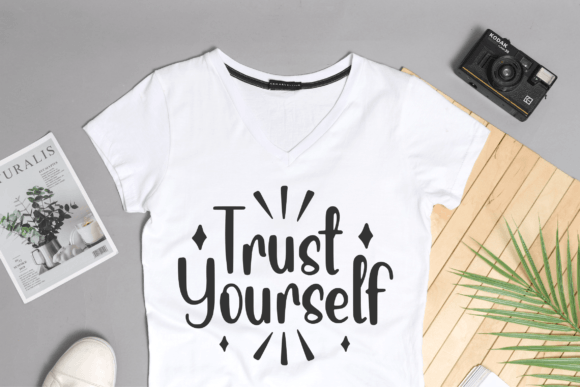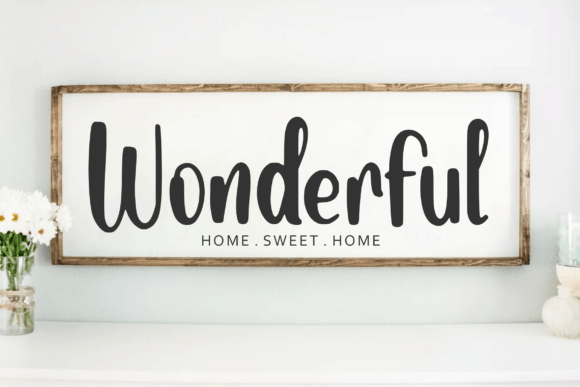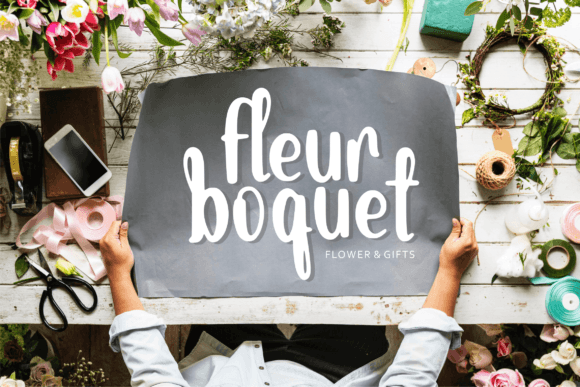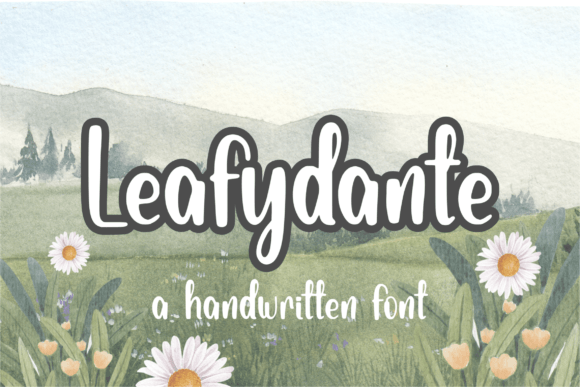
Introduction to Leafydante Font
Leafydante is a beautiful handwritten font perfect for product packaging, branding project, magazines, social media posts, weddings, or just used to express words above the background.
Key Features of Leafydante Font
Why Choose Leafydante Font?